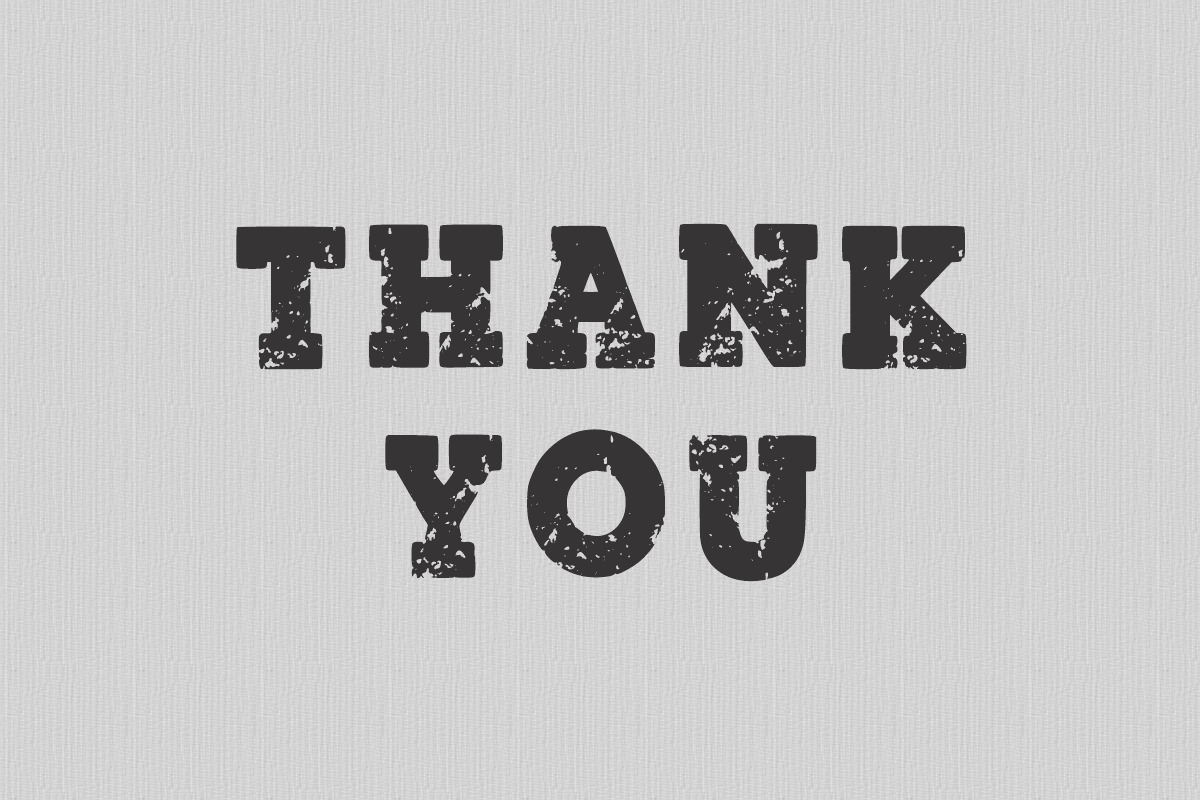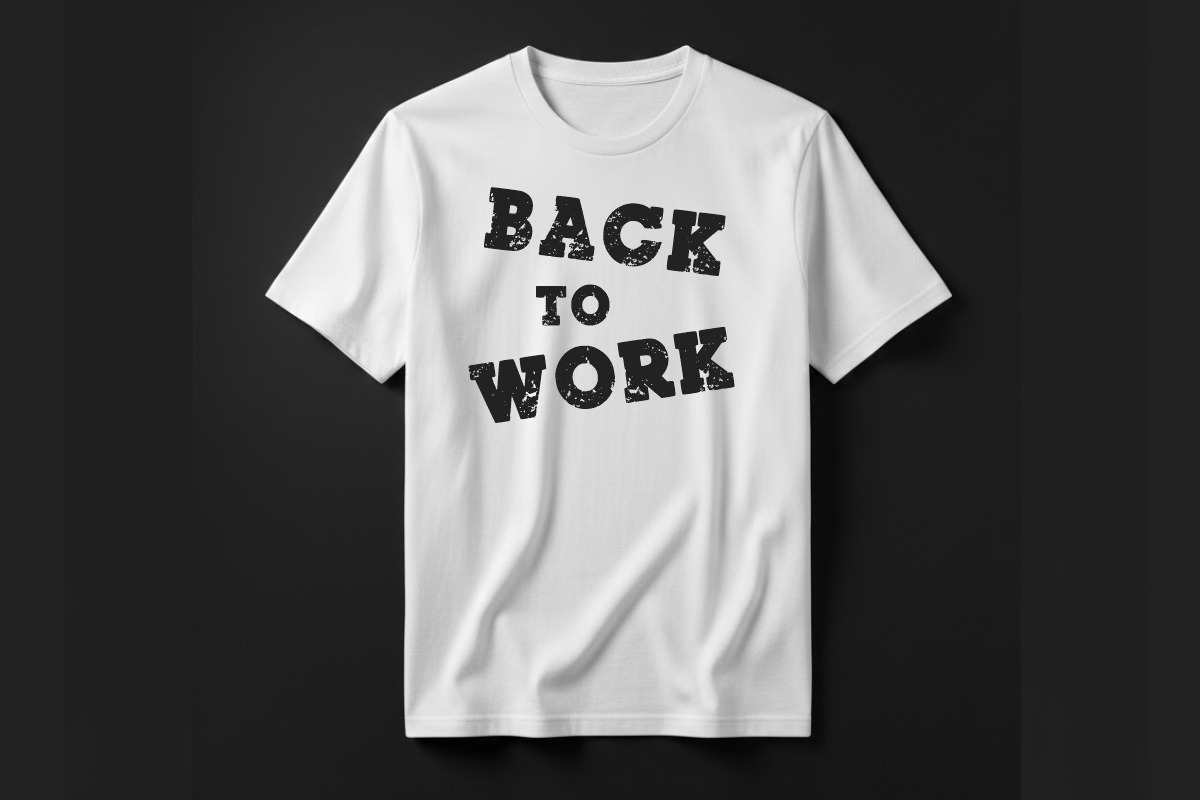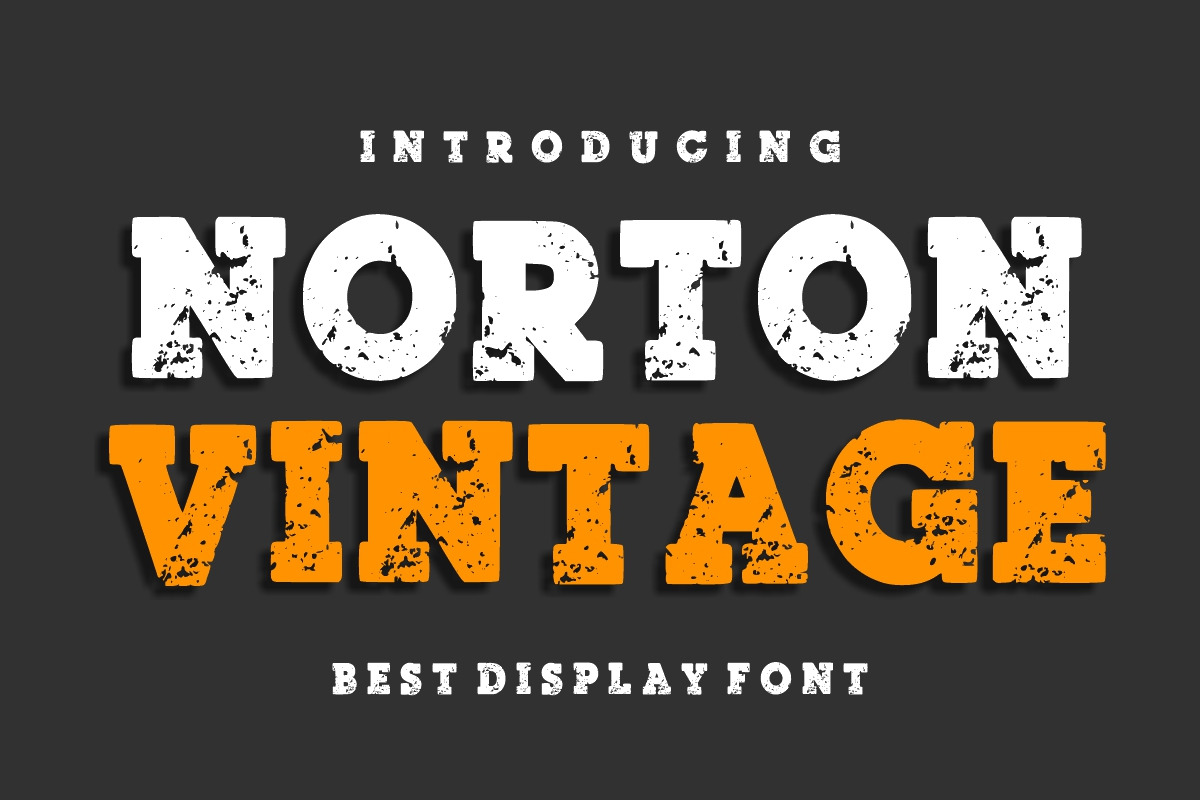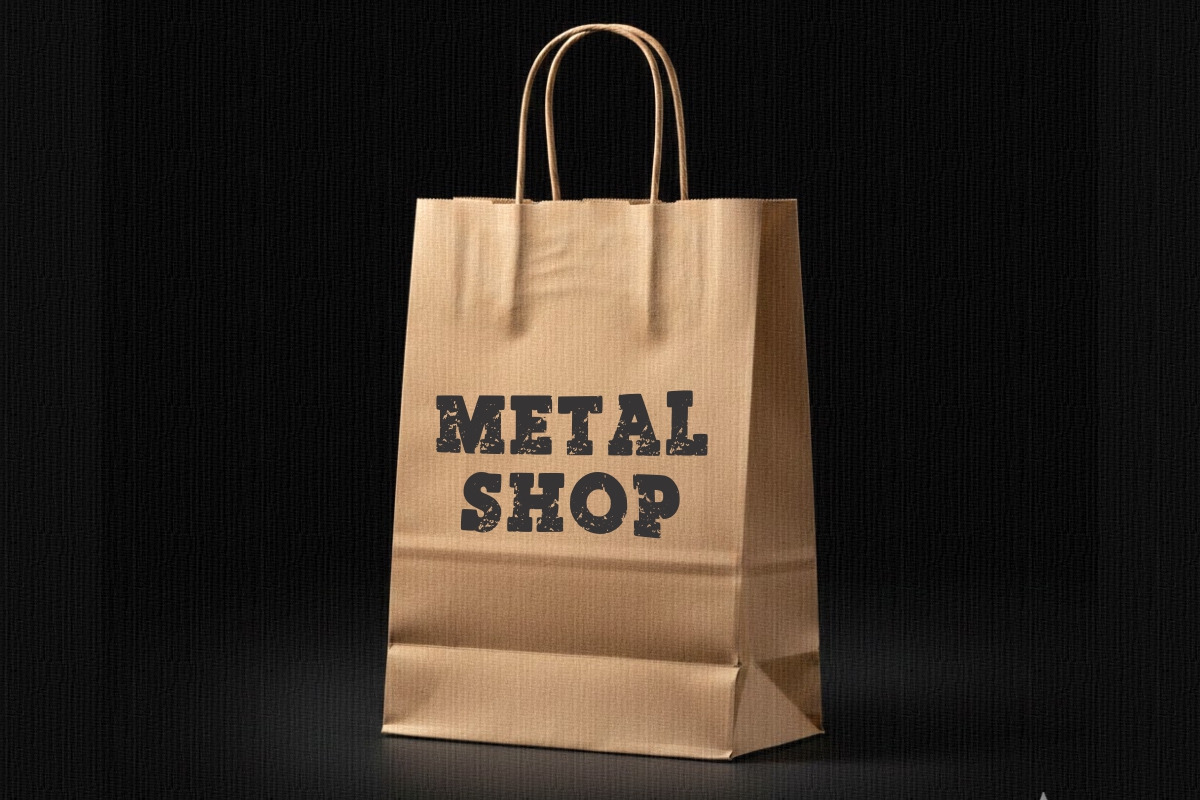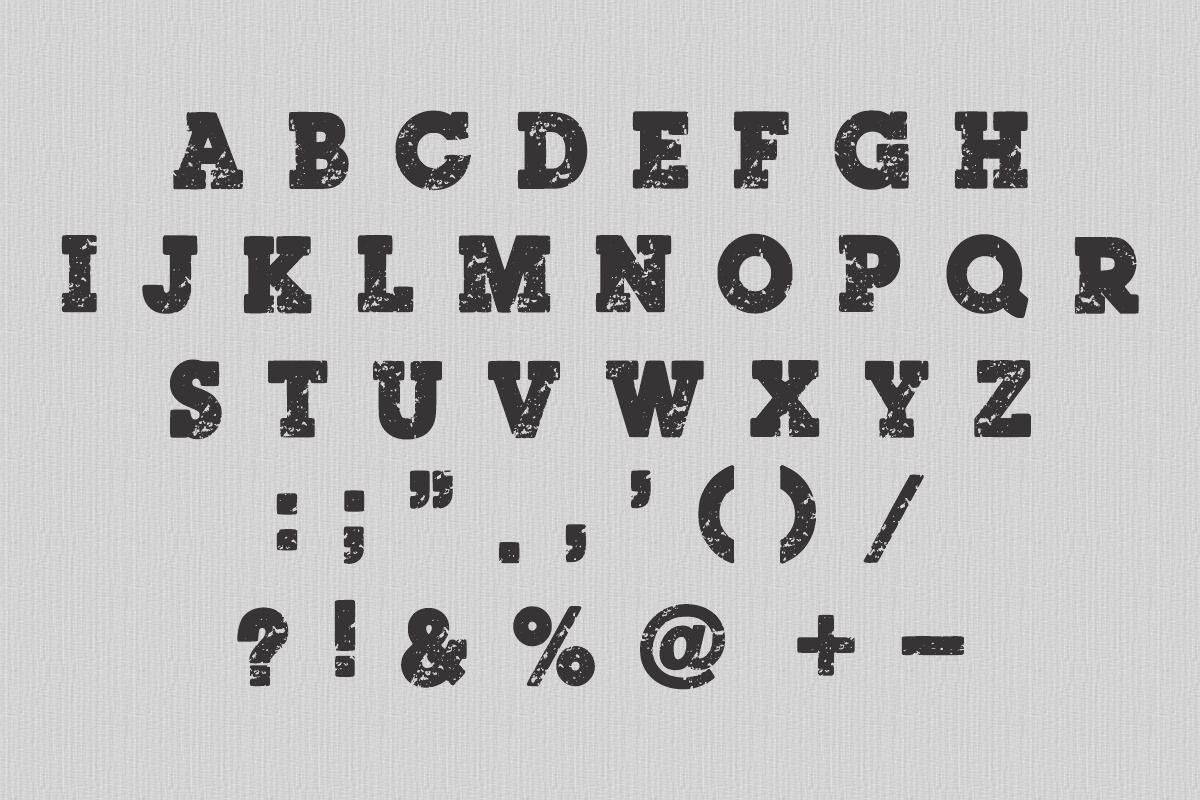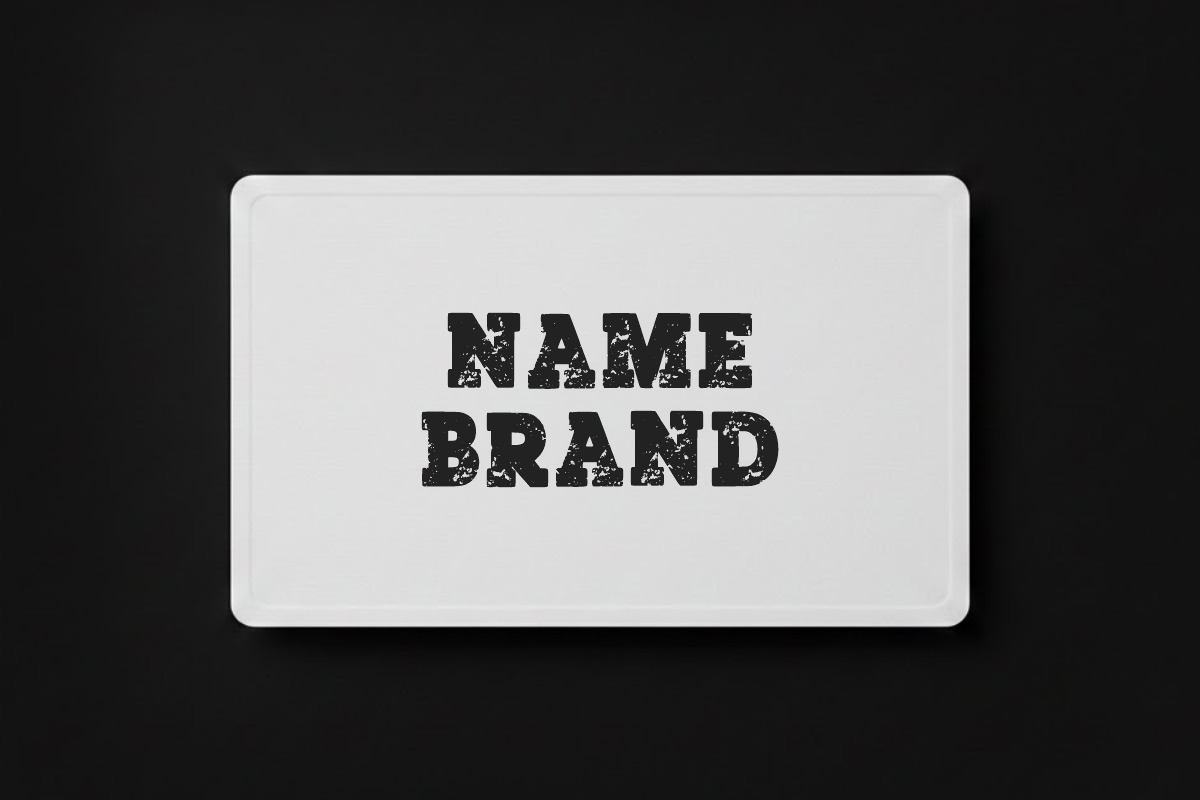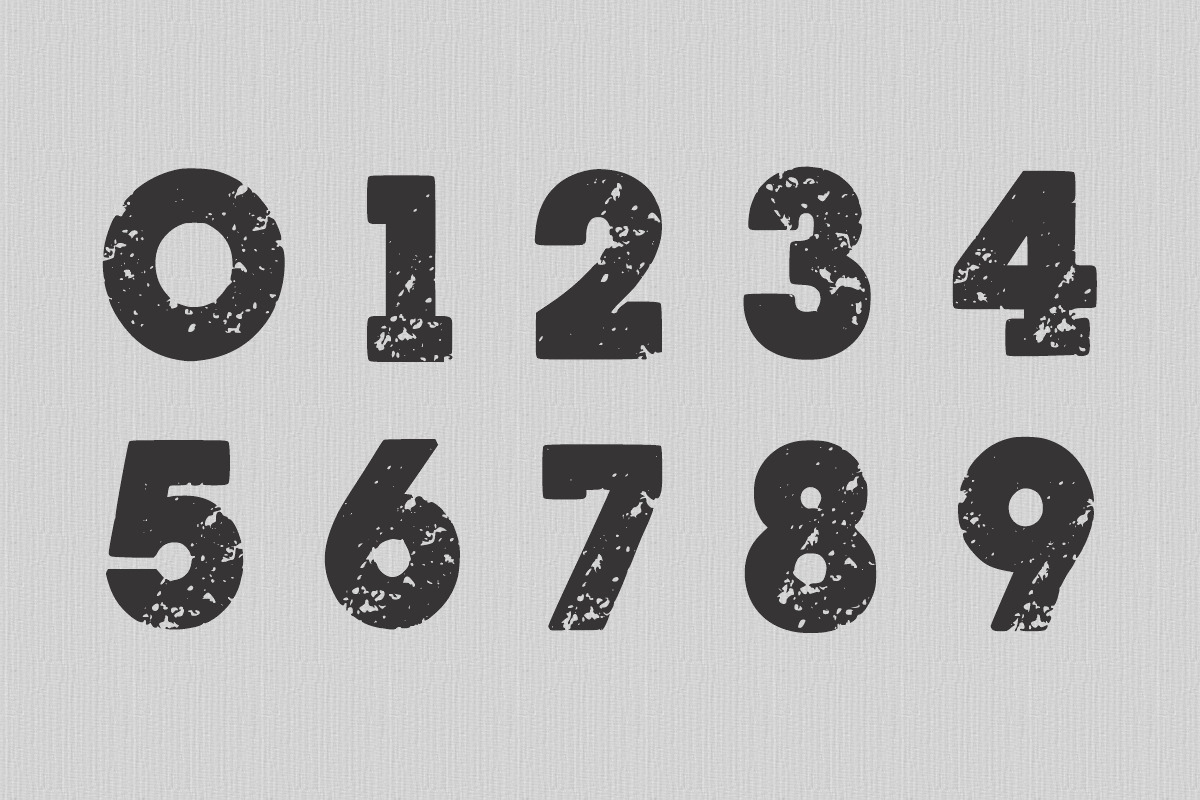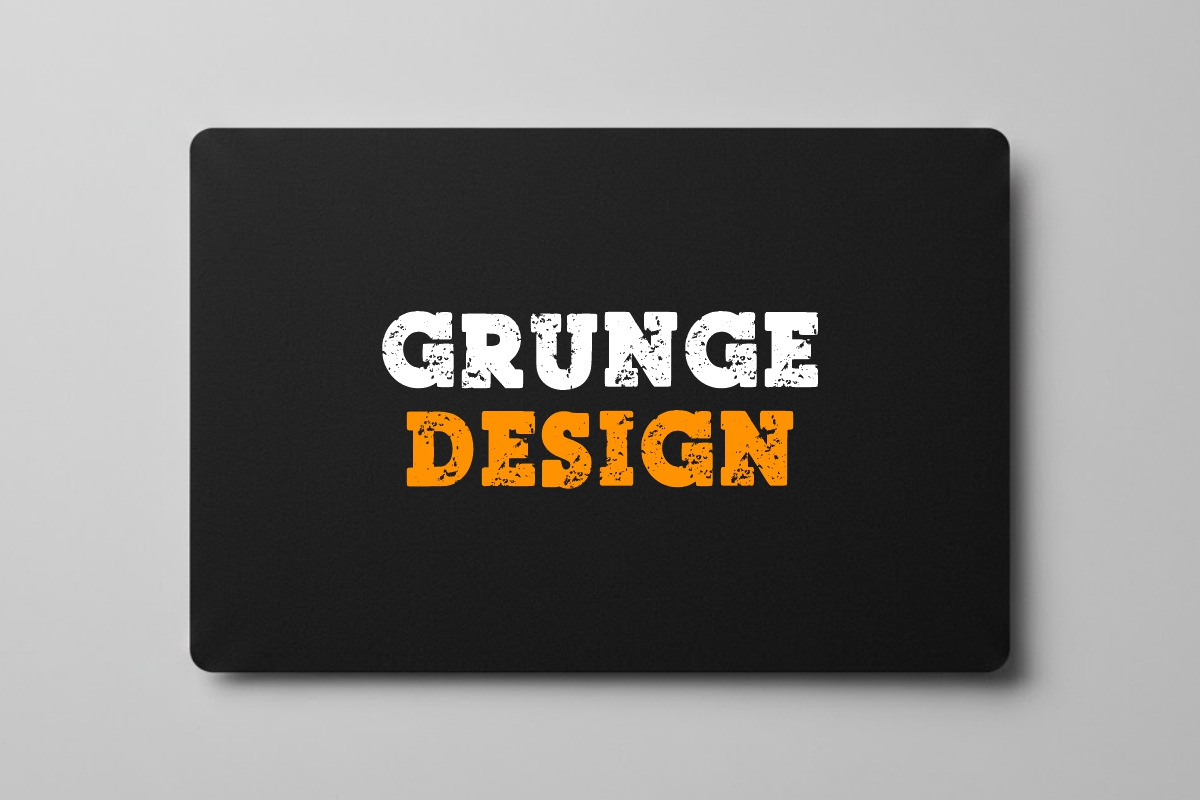
Norton Vintage College Font
Norton Vintage is a Vintage, Retro, cool, grunge bold display font perfect for various projects such as blog posts, logos, branding, ads, invitations, greeting cards, planners, photo albums, decorations, and much more.